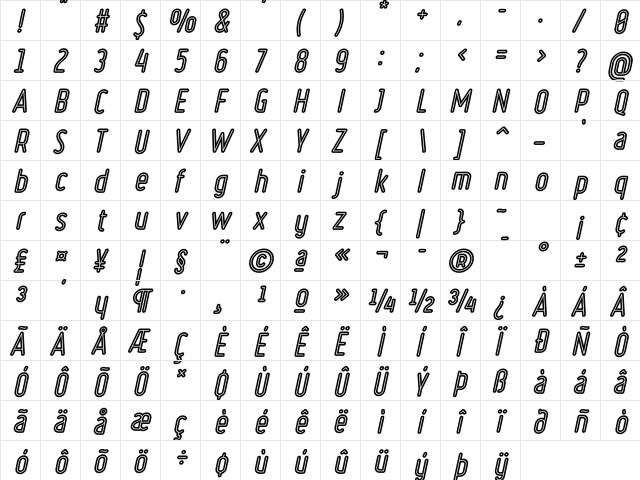
Ruler Volume Inline Regular
Design Context for Ruler Volume Inline Typeface
Ruler Volume Inline brings ornamental detail and strong personality to headlines and identities, where visual impact matters more than quiet functionality.
Font Pairing: Pair with a clean neutral sans-serif for body copy to let Ruler Volume Inline's character lead without overwhelming the composition.
Pro Tip: Use Ruler Volume Inline exclusively at display sizes — it was designed to be seen, not read at length. Let a neutral companion handle body copy.